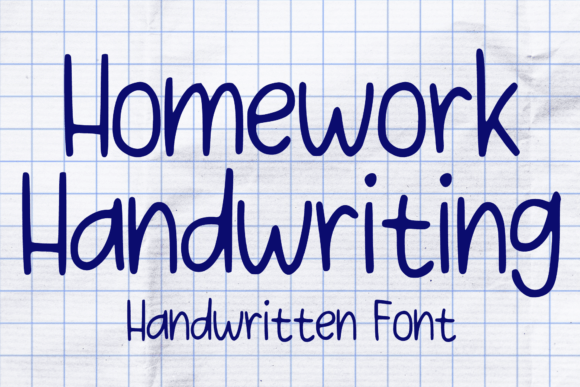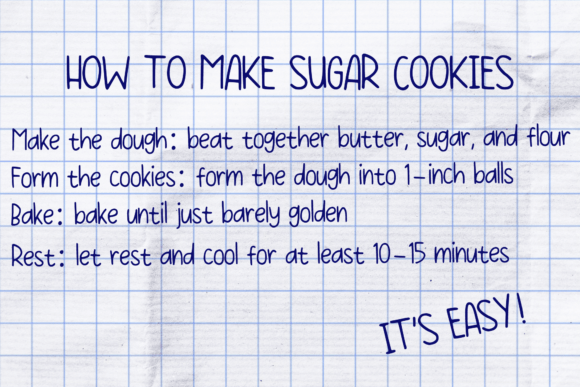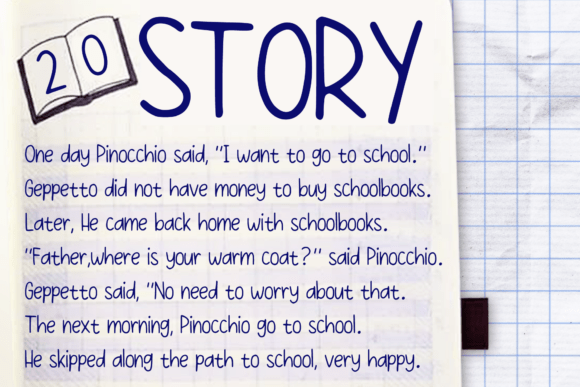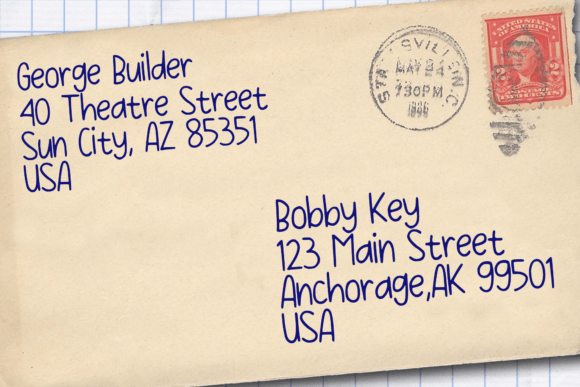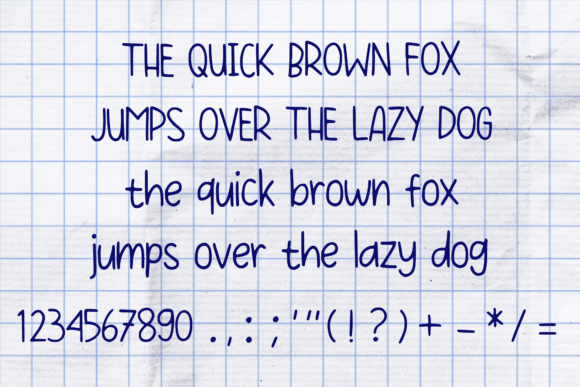
Unleashing Your Creativity: The Magic of Homework Handwriting Font
Who hasn’t experienced that moment of pure excitement when they stumble upon the perfect font to elevate their design project? The spark of creativity ignites, and before you know it, your imagination is running wild with endless possibilities. For designers, finding the right font can make all the difference in bringing a concept to life.
Enter Homework Handwriting Font, a versatile and fun pen font designed to take your designs to new heights. With its super cool touch, this font is perfect for a wide range of projects, from stickers and t-shirt designs to logo creations and magazine covers. Whether you’re working on a comic, cartoon drawing, or book cover, Homework Handwriting Font is sure to add that special something that sets your design apart.
Key Features of Homework Handwriting Font
- Unique Characteristics: The Homework Handwriting Font is designed to mimic the look and feel of handwritten notes, with subtle imperfections and variations that give it a natural, authentic appearance.
- Script and Alphabet Support: The font includes a full range of uppercase and lowercase letters, as well as numbers, punctuation marks, and special characters, making it suitable for a variety of applications, from educational materials to creative projects.
- Style Options: The font comes in two styles: Regular and Italic, allowing users to choose the style that best suits their needs.
Designer Review: Homework Handwriting Font
Overall, I think the Homework Handwriting Font is a lovely addition to any designer’s toolkit. ✨ The font is perfect for creating a warm, inviting, and educational feel in any project, from school assignments to marketing materials.
- The font’s unique, handwritten style adds a personal touch to any project.
- It’s great for titles, headings, and body text, making it a versatile choice.
- The font is highly legible, even at small font sizes.
- The font may not be suitable for formal or professional projects, as it has a more casual, handwritten feel.
- It may not be as consistent in terms of spacing and letterform design as some other fonts.
- Some users may find the font’s irregularities distracting or hard to read.
Overall, I think the Homework Handwriting Font is a great choice for designers looking to add a personal touch to their projects. While it may not be suitable for every project, it’s a versatile and effective font that’s sure to please.
Use the “Homework Handwriting Font” to create a warm and inviting atmosphere in your designs.
Combine it with other fonts and design elements to create a unique and engaging visual identity.
Experiment with different font sizes and styles to add emphasis and hierarchy to your text.
The “Homework Handwriting Font” is perfect for:
Creating educational materials, such as worksheets and handouts.
Designing children’s books and educational resources.
Adding a personal touch to your branding and marketing materials.